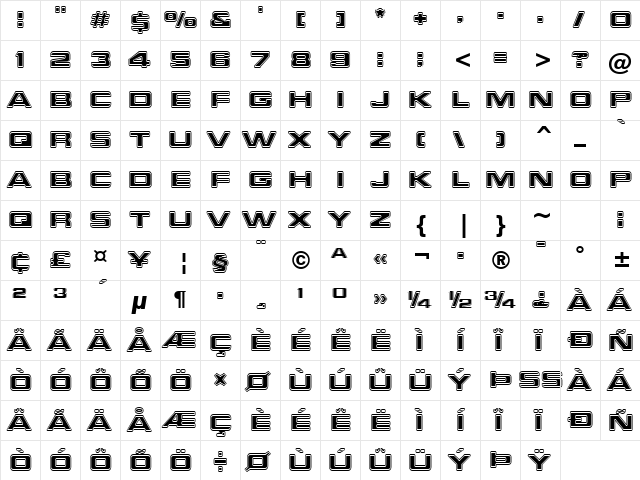
Millenium BdEx BT Bold Extended
Design Context for Millenium BdEx BT Typeface
Millenium BdEx BT is a composed and adaptable typeface that performs quietly and consistently across a wide range of design contexts. The heavy weight commands attention and anchors typographic hierarchies.